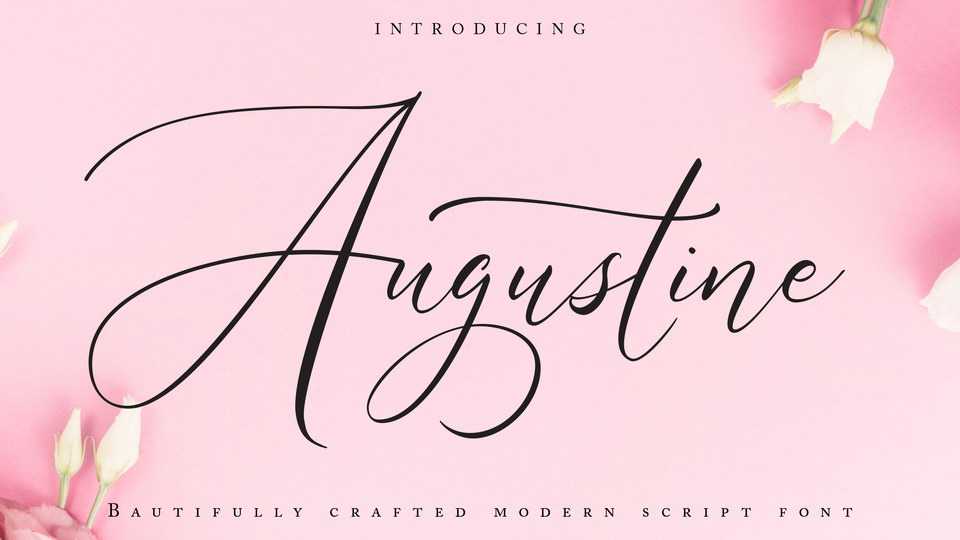
Download Augustine font, a stunning handwritten script with a charming vibe. Augustine font is perfect to add a touch of elegance to any creative project.
Designer: Vunira Design